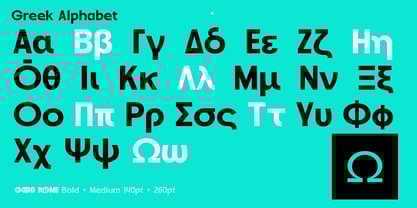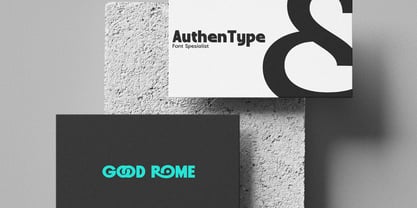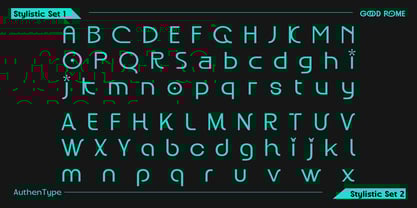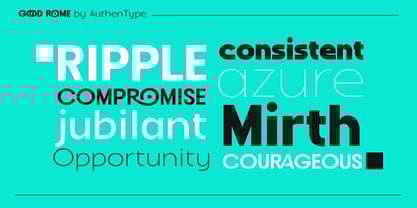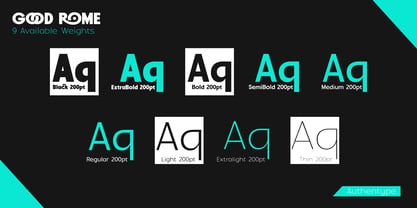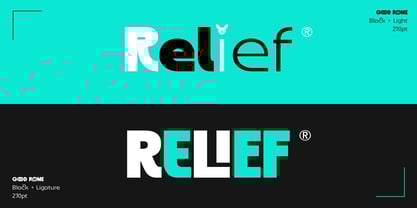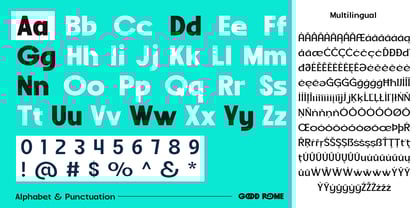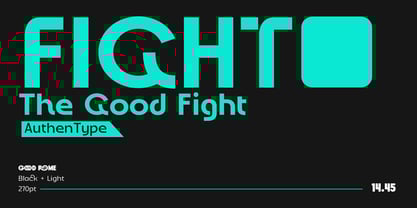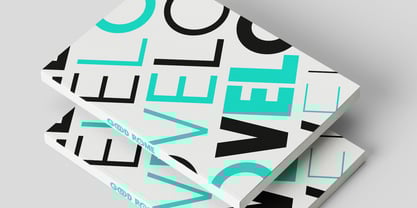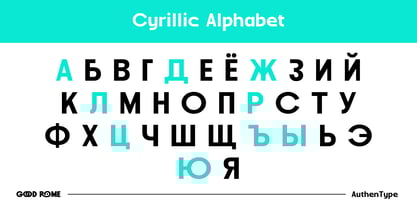
Good Rome
by Authentype
The Good Rome Font Family was designed by Ekayasa and published by Authentype. Good Rome contains 9 styles and family package options.
Good Rome – The Future of Sans Serif Design is a modern and sophisticated sans-serif typeface that blends versatility with precision. Designed to harmonize futuristic aesthetics with timeless readability, it offers a sleek yet approachable look that adapts seamlessly to various design needs. Whether you’re crafting a bold brand identity, refining editorial layouts, or enhancing UI/UX experiences, Good Rome delivers clean, elegant typography that makes a lasting impression.